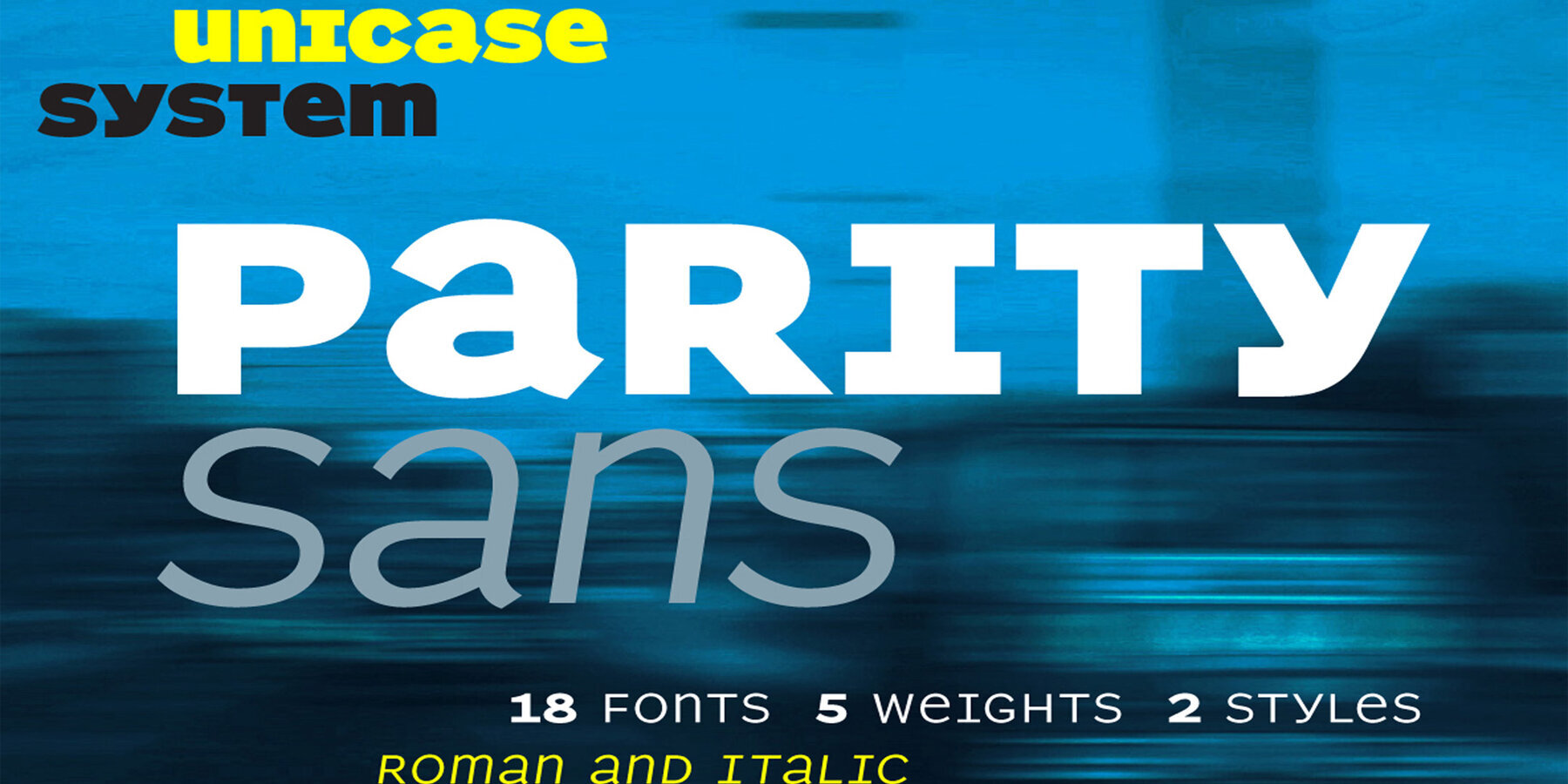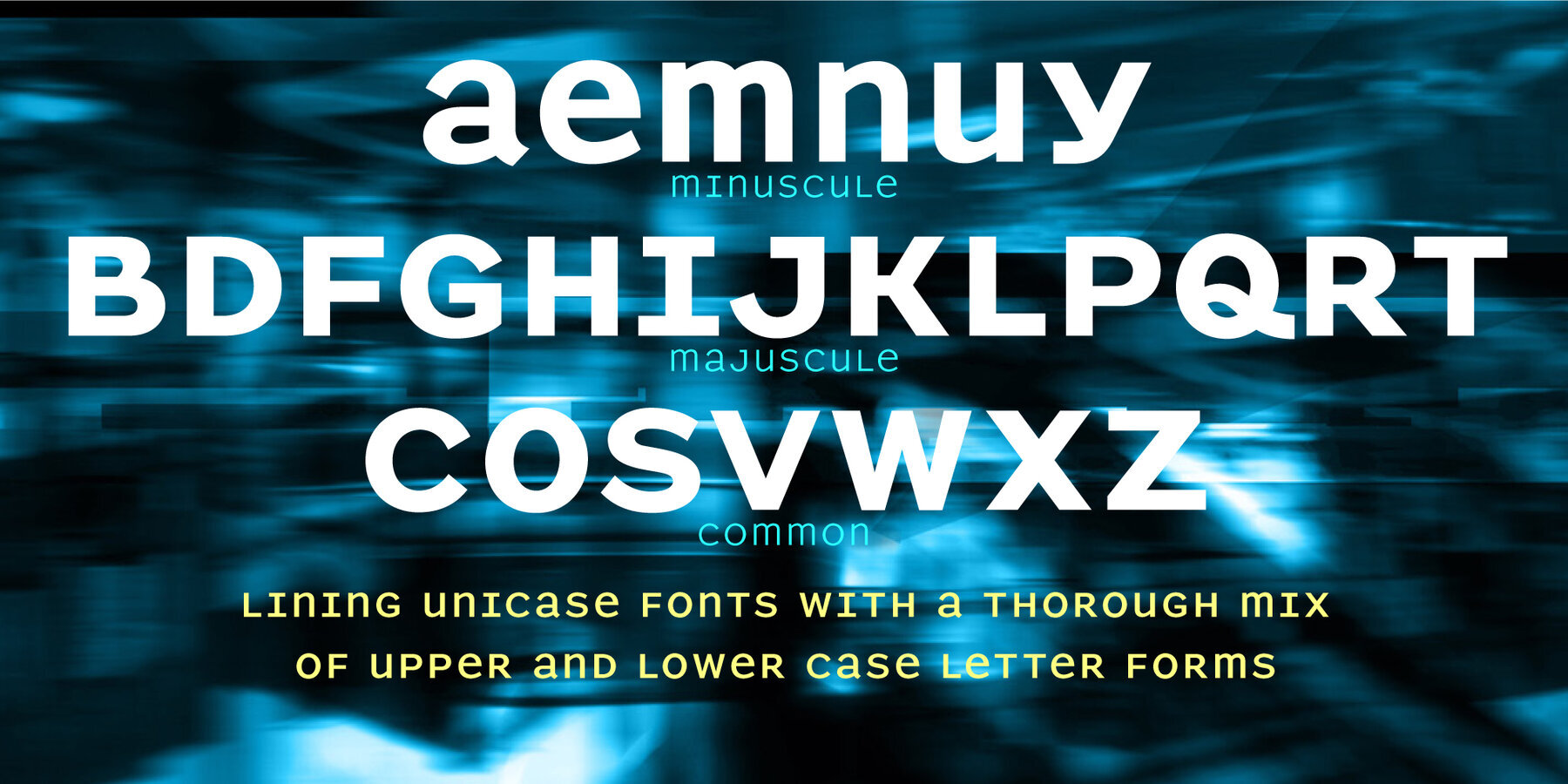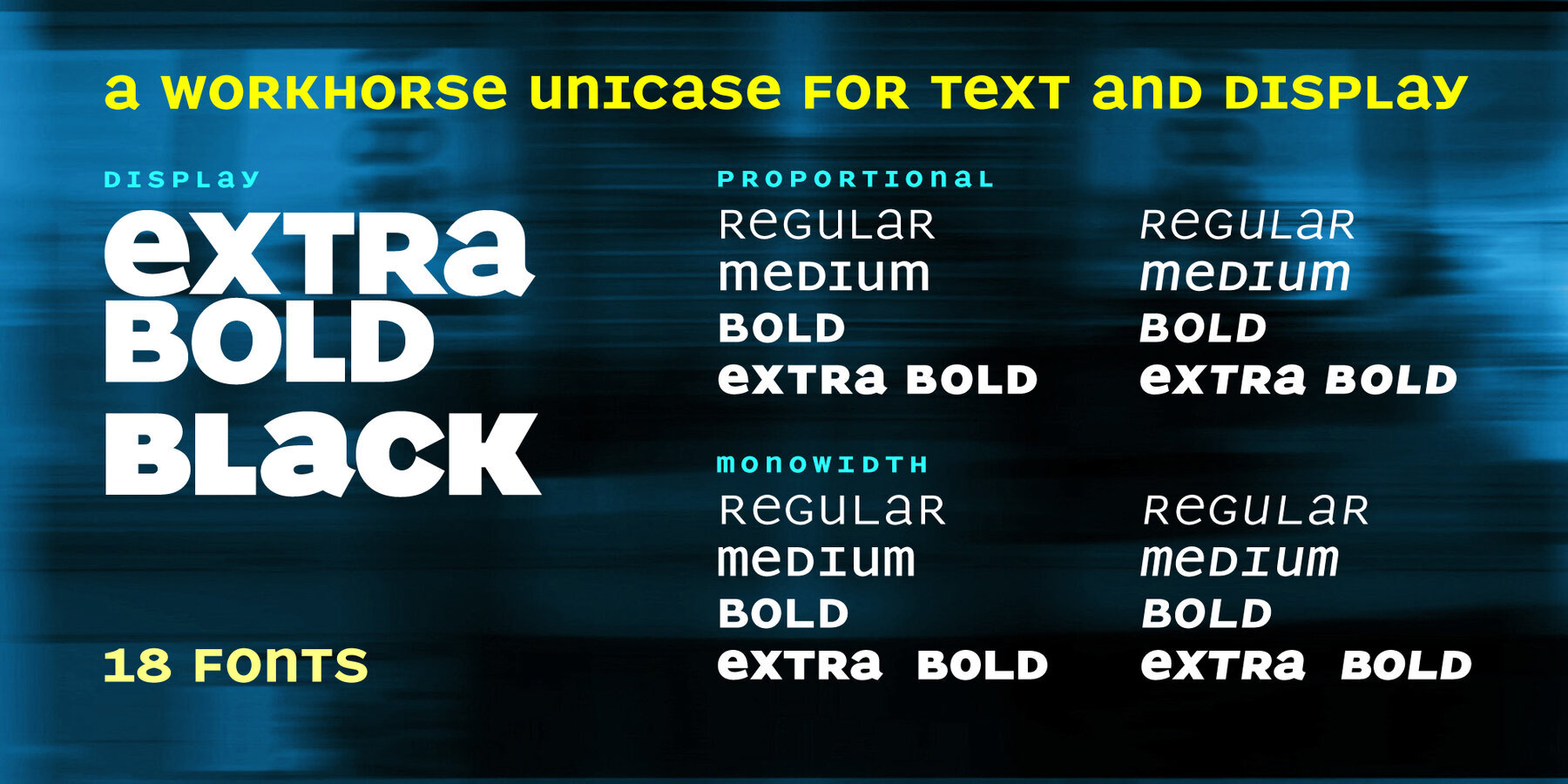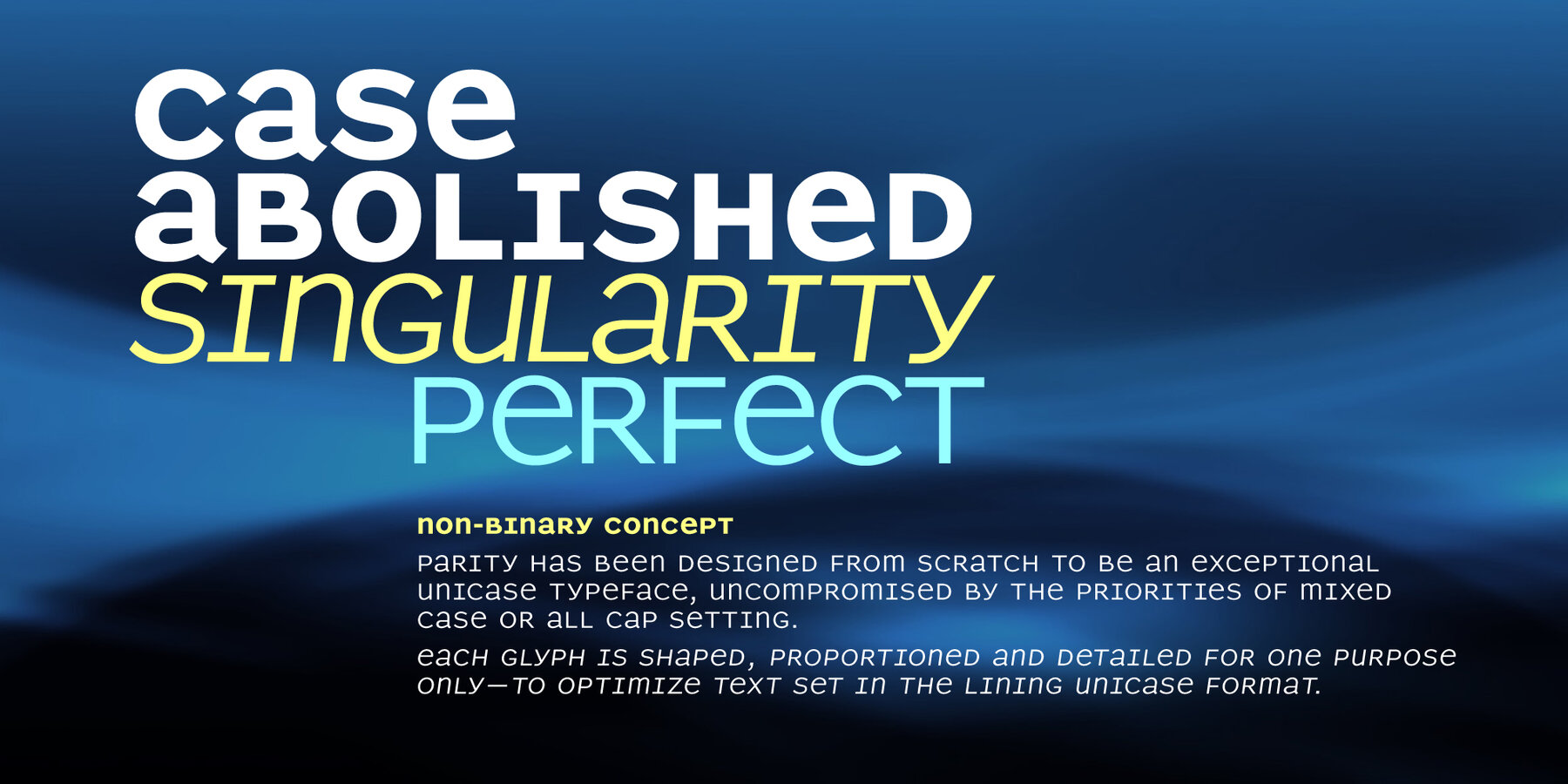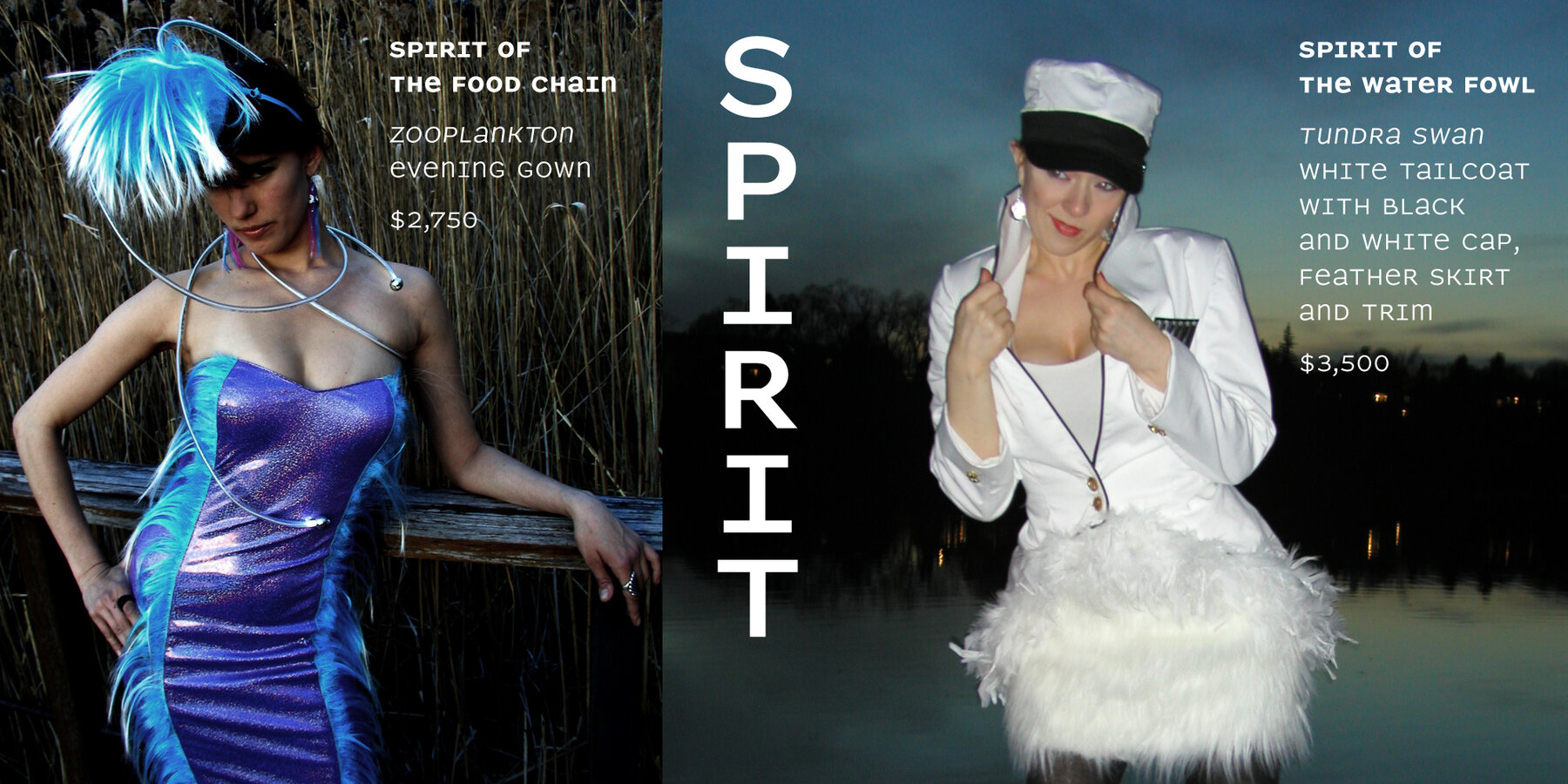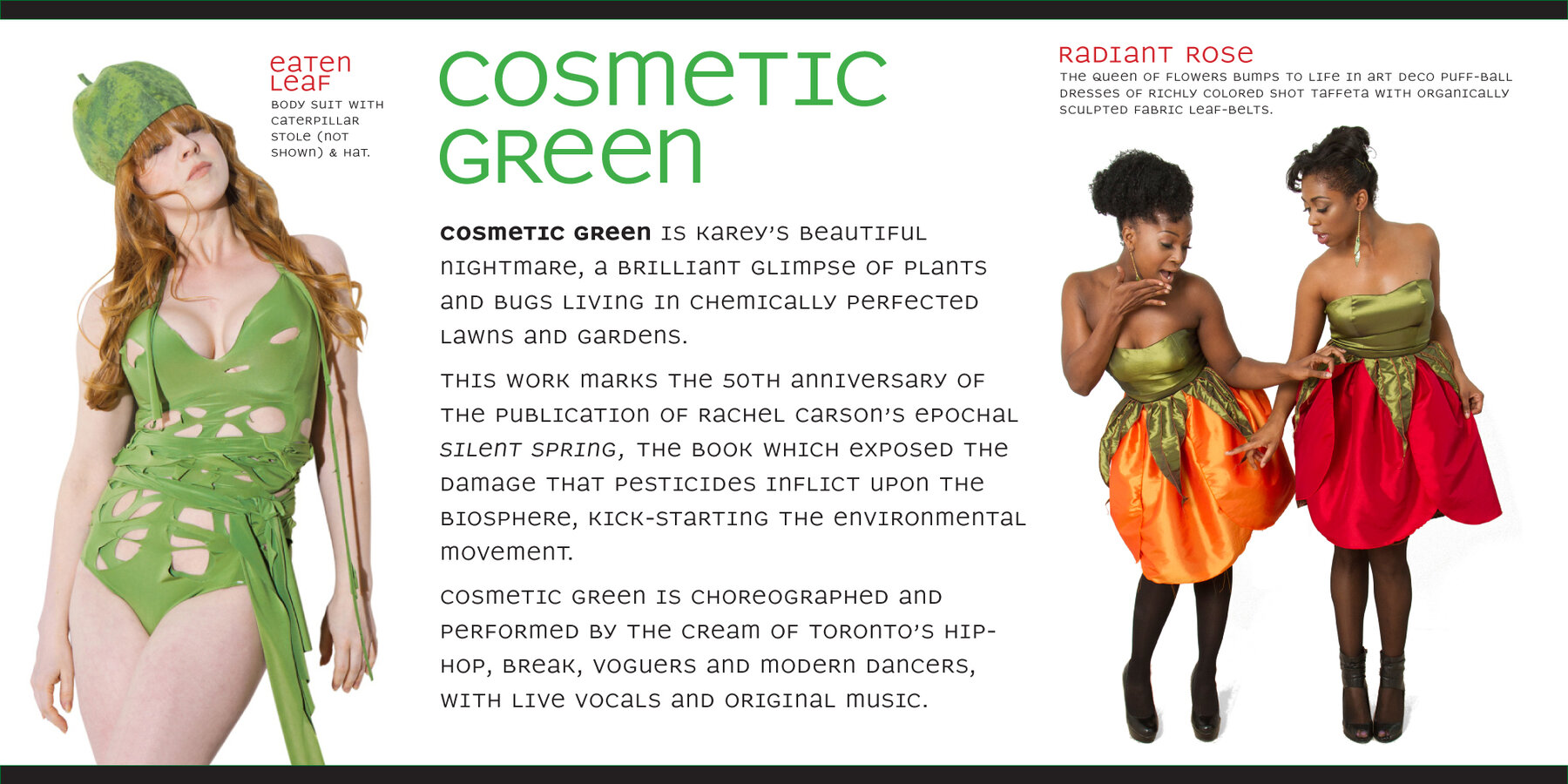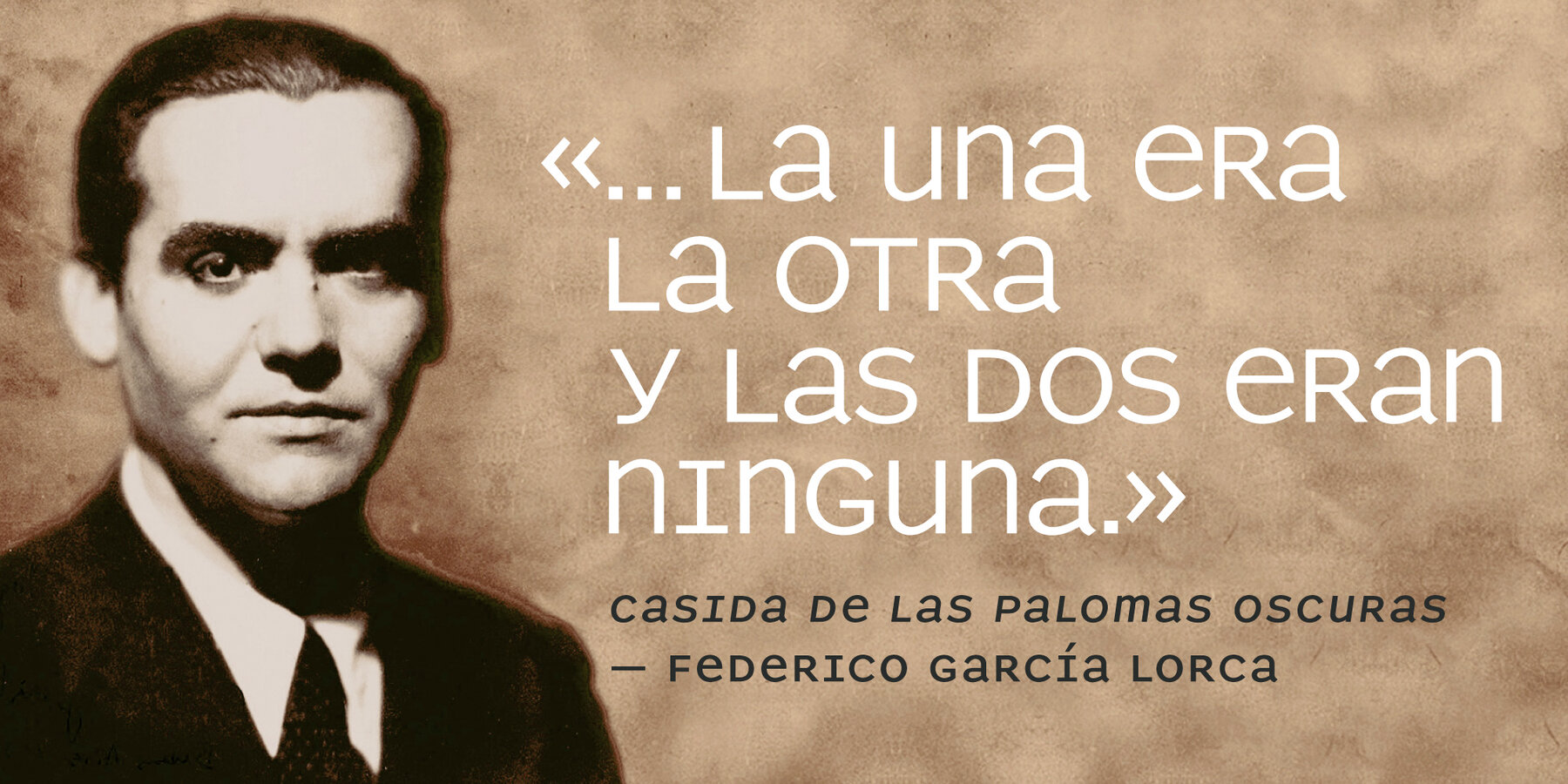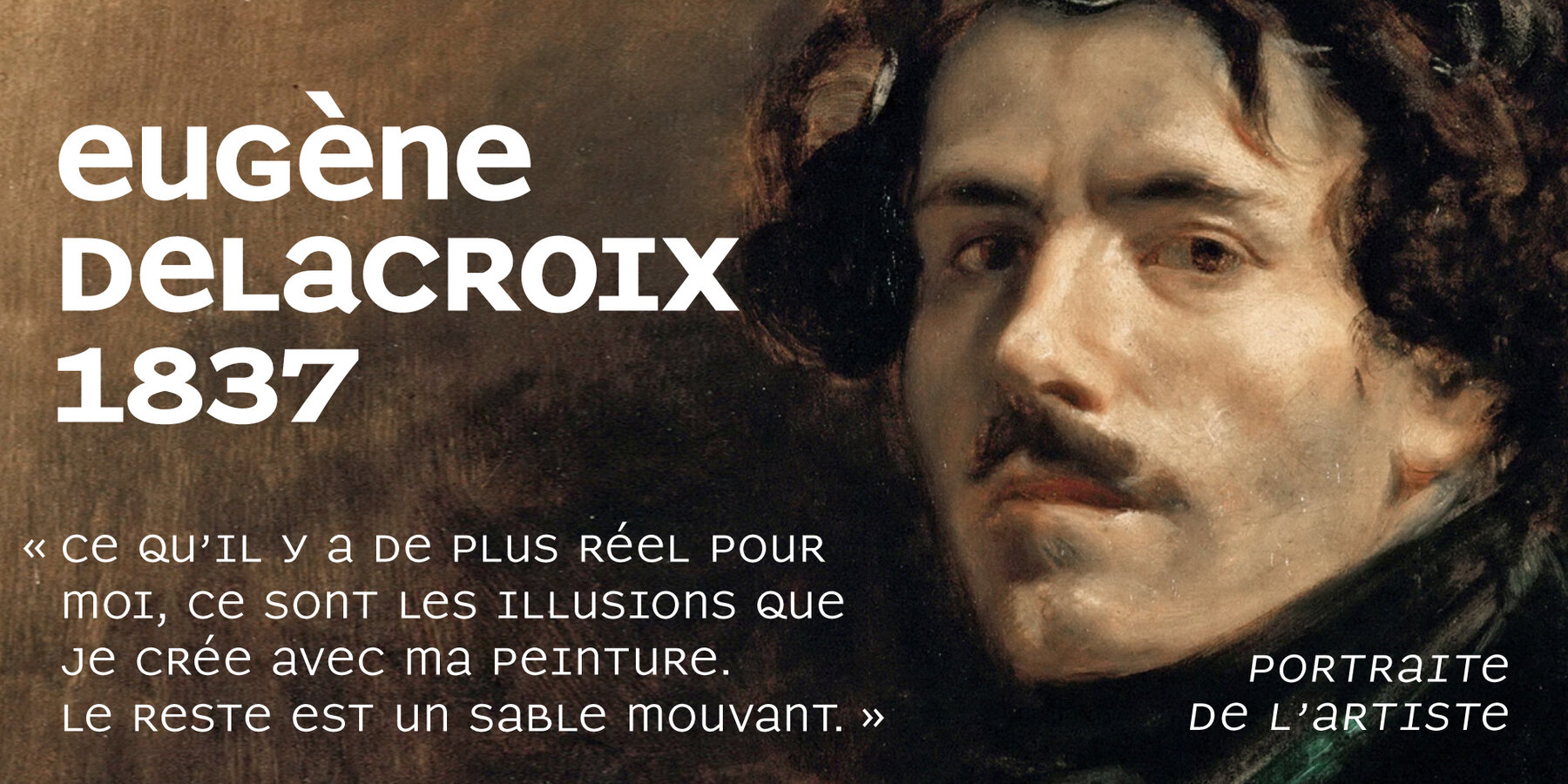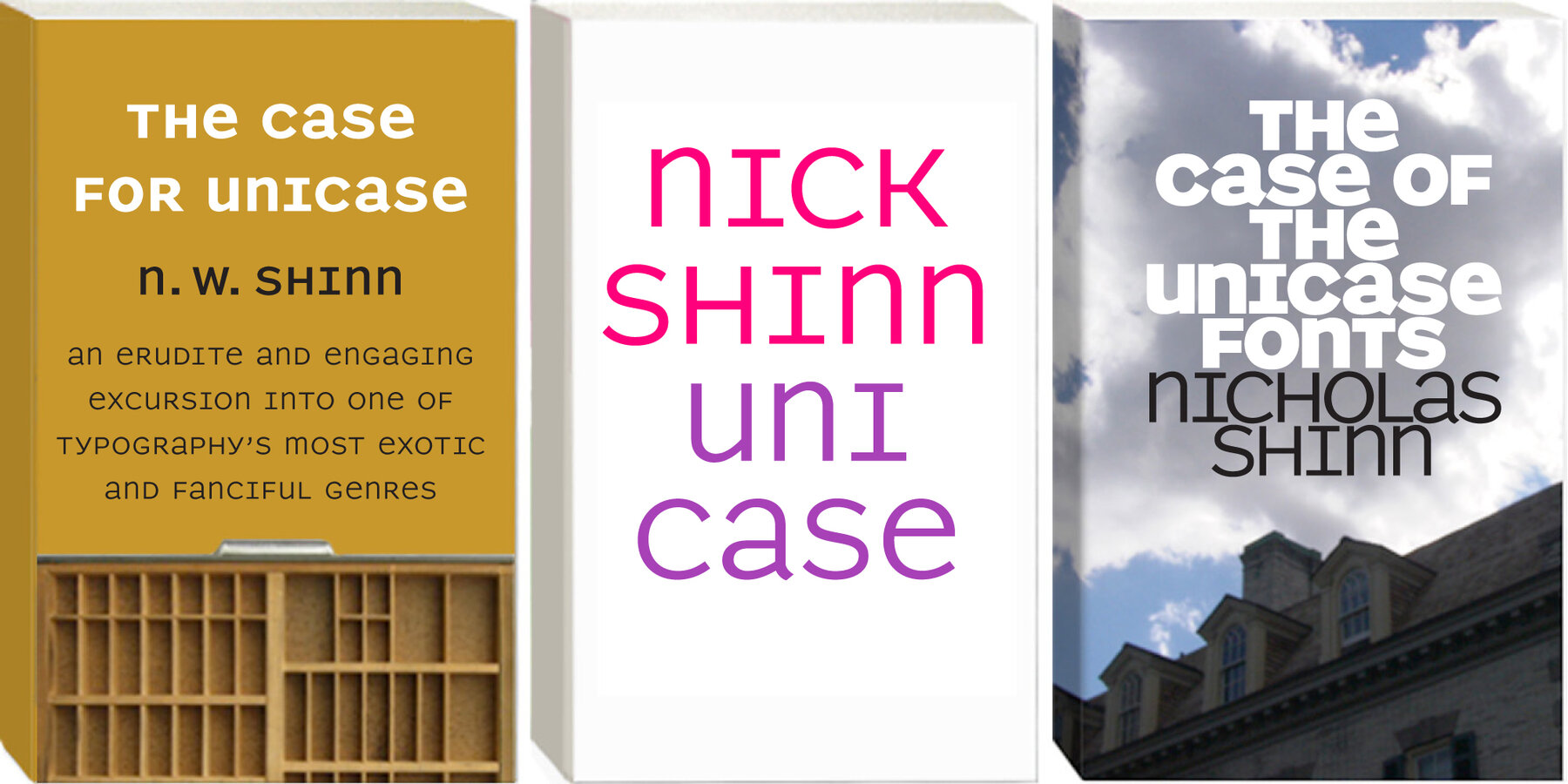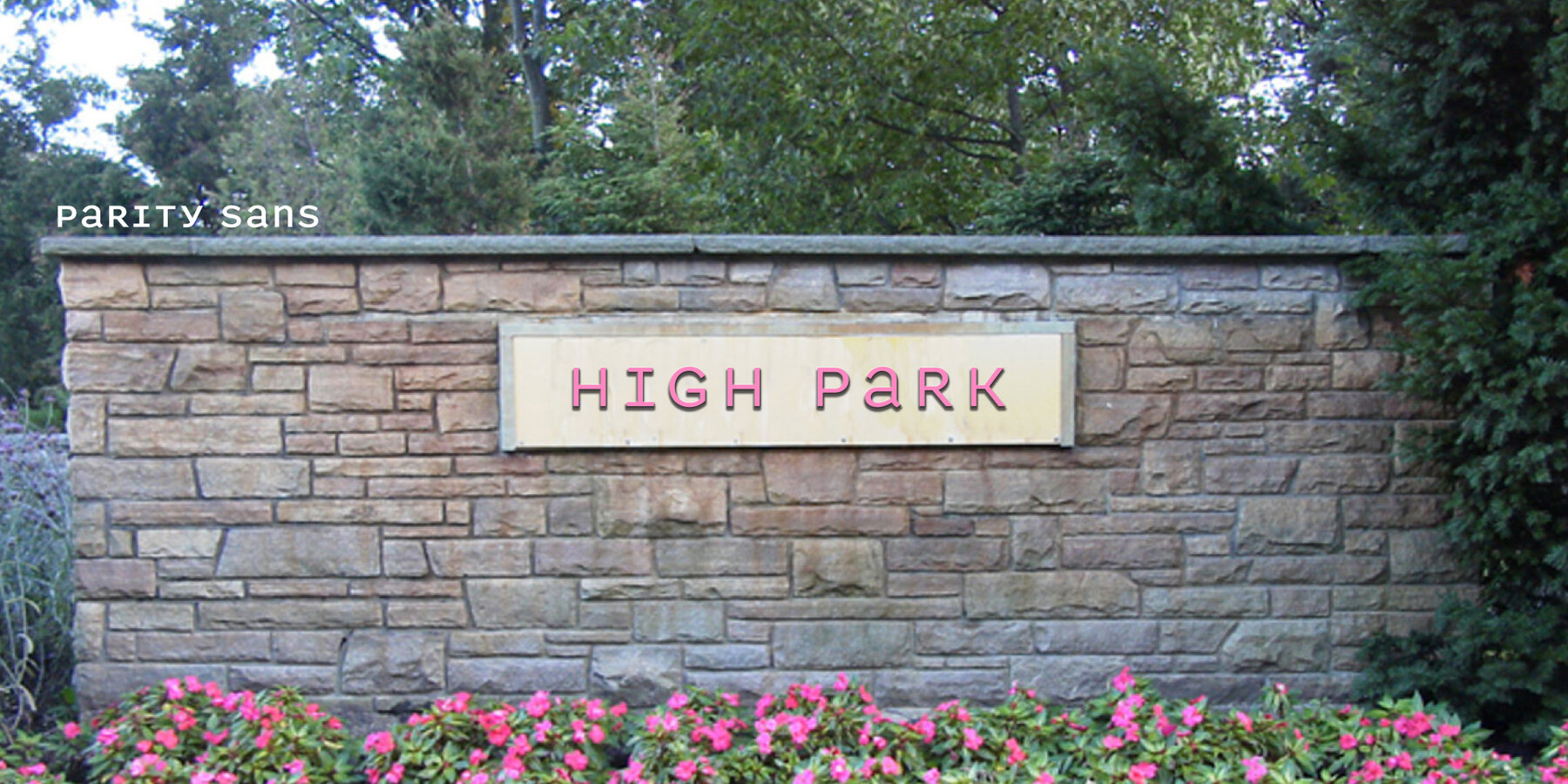
Parity Sans Font
There is a lot to choose from in this unicase megafamily, with roman and italic, six weights, text and display styles, and both proportional and monowidth versions!